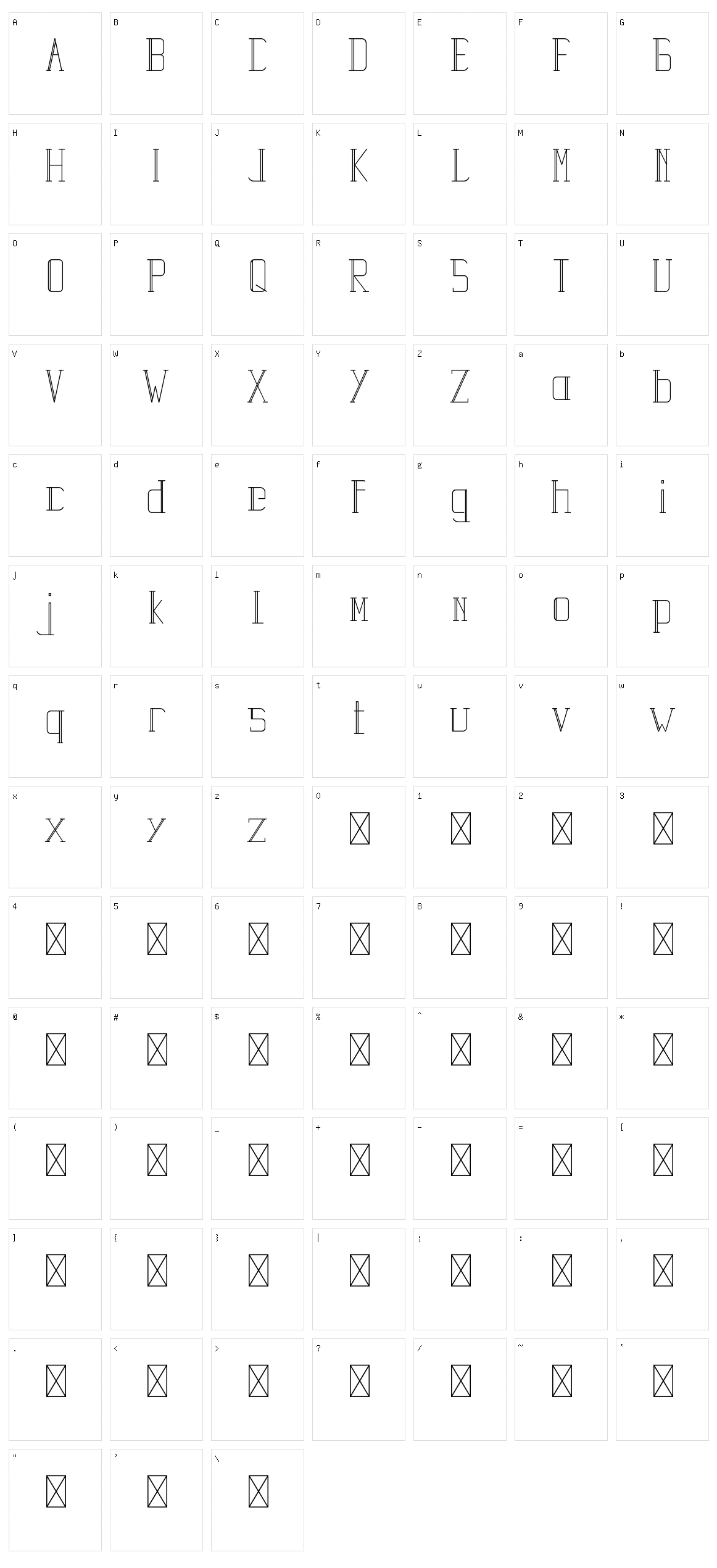
The free font Velasquis Tamyra is carefully designed by Edric Studio, showcasing a thoughtful balance of creativity and usability and falls under the Retro font style. When you download the ZIP file, it contains only 5.87 KB of font files, making it lightweight and quick to download. Please review the license details below to understand permitted usage and distribution rights. If license information is not available, we recommend using this font for personal projects only or contacting the author directly for commercial usage permissions.